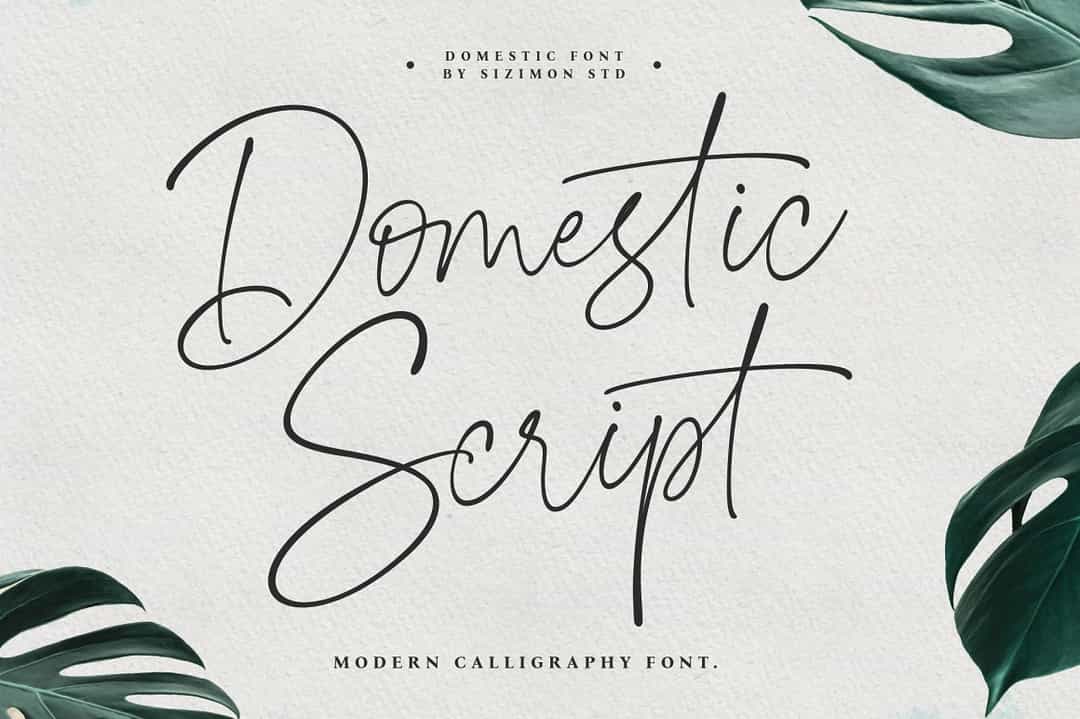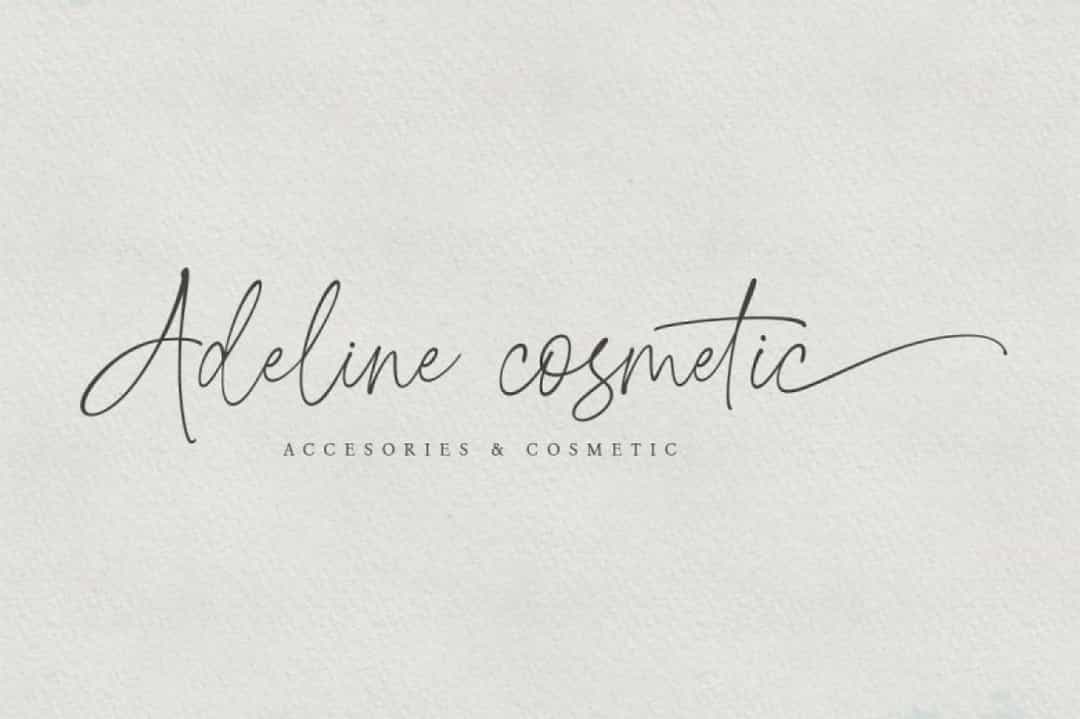
Discover Domestic Font, part of the Calligraphy Handwritten collection—a versatile and unique font perfect for adding a personal touch to your projects. Download it for free and enjoy crafting designs with style, from invitations to social media posts. This font is available exclusively for personal use, giving you the freedom to create without limits. Unlock your creativity with Domestic Font today!
Domestic Font is a modern handwritten script calligraphy font. Ideal for branding purposes, quotations ornaments shirts blogs mugs invitations logos and much more! This font offers excellent flexibility when used for logos and more!